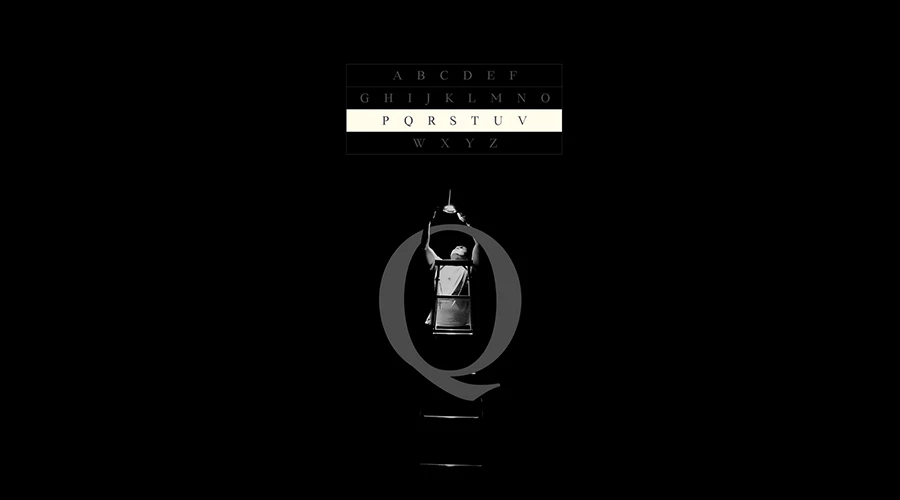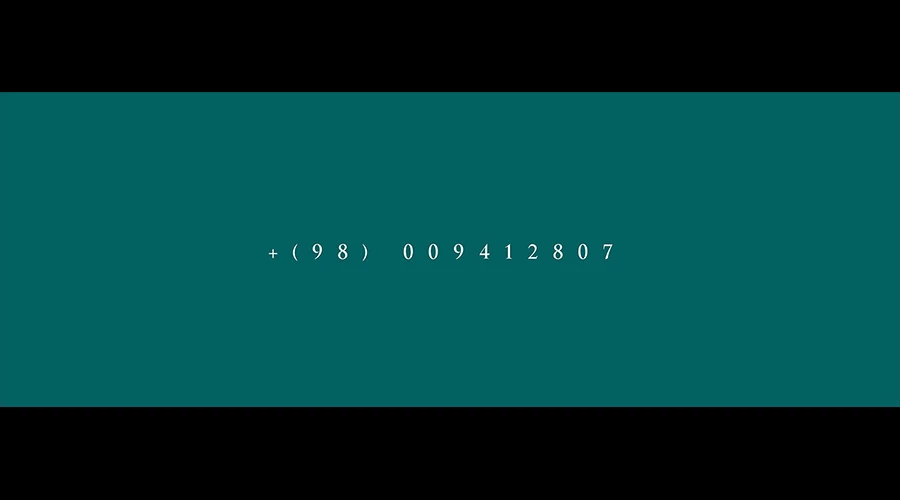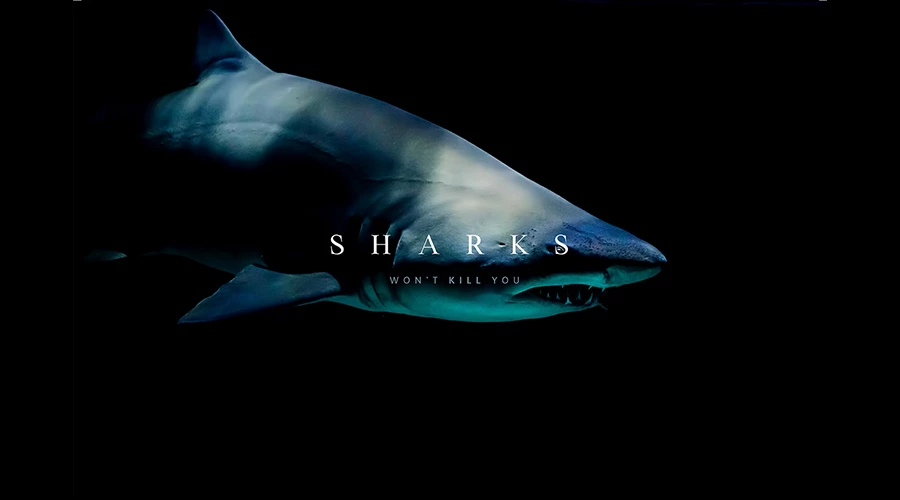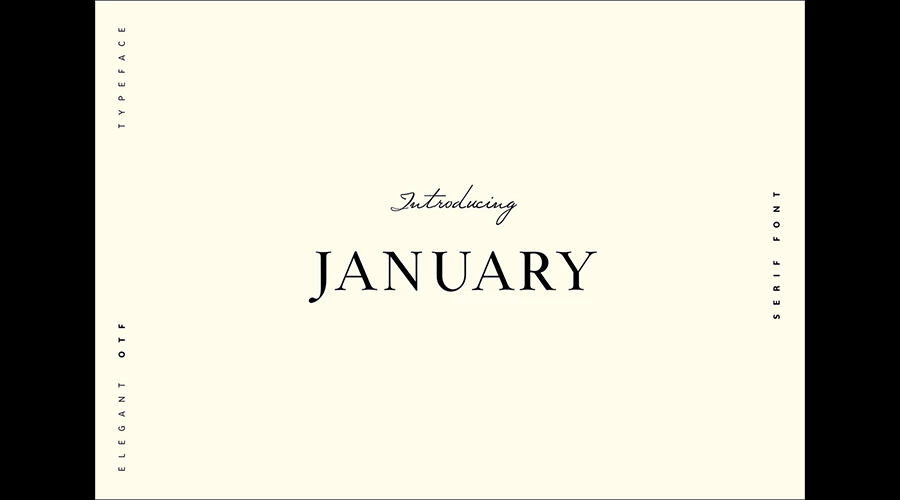
January Free Typeface
About January Free Typeface
January Free Typeface is an elegant and stunning serif font that was designed by Rachel Manch in 2018. The original release presented it as free for commercial projects; retain and verify those release terms. It has 148 glyphs and 93 characters.
What can you do with this font?
Although the motive of this font is to create luxurious design projects, you can also use it on other creative professionals’ projects. like a company logo, YouTube banner, book cover, book text, any heading, etc.
January Free Typeface
January’s original release and character coverage
January is an elegant, high-contrast display typeface credited to Rachel Manch. Its strongest use is in short editorial, fashion, beauty, invitation, packaging, and luxury-style titles where the thin details have room to render cleanly. It should be tested carefully at small sizes and on low-resolution screens because fine strokes can disappear.
Before selecting January for a real project, type every capital, numeral, punctuation mark, and accented character the design requires. Pair it with a neutral sans serif for body copy and small labels. Avoid artificial bolding because browser or design-software synthesis can close counters and damage the intended contrast.
Practical review checklist
• Verify the exact 93-character-style coverage against your copy.
• Use the face at display size and test thin strokes in export.
• Choose a separate licensed body font for long reading text.